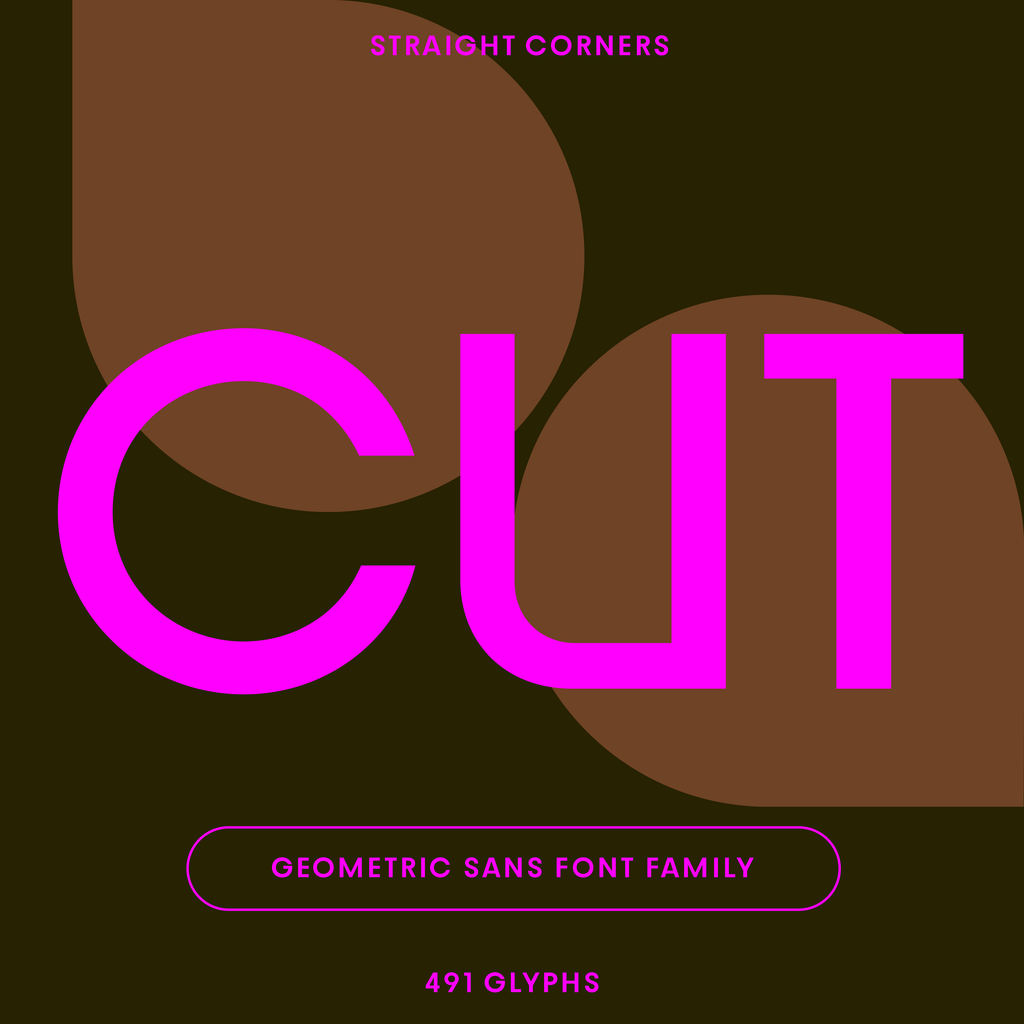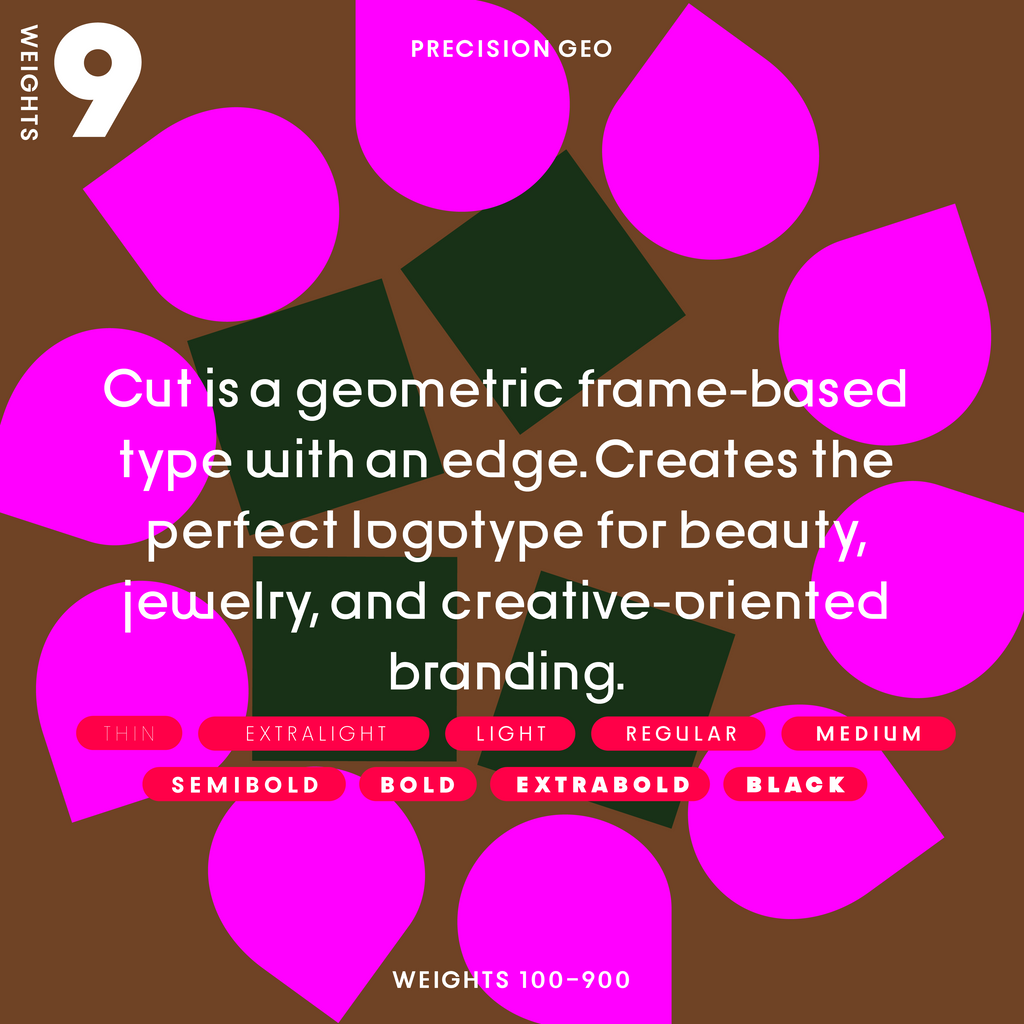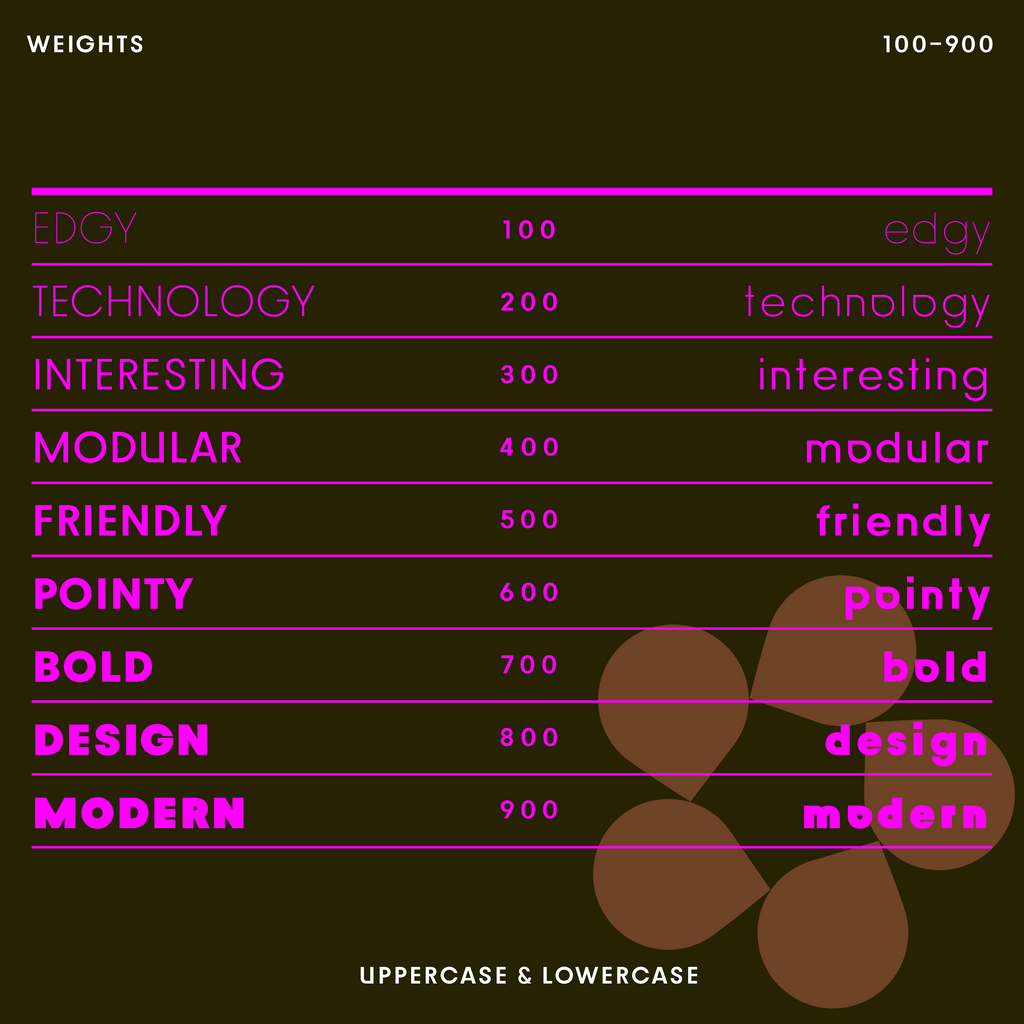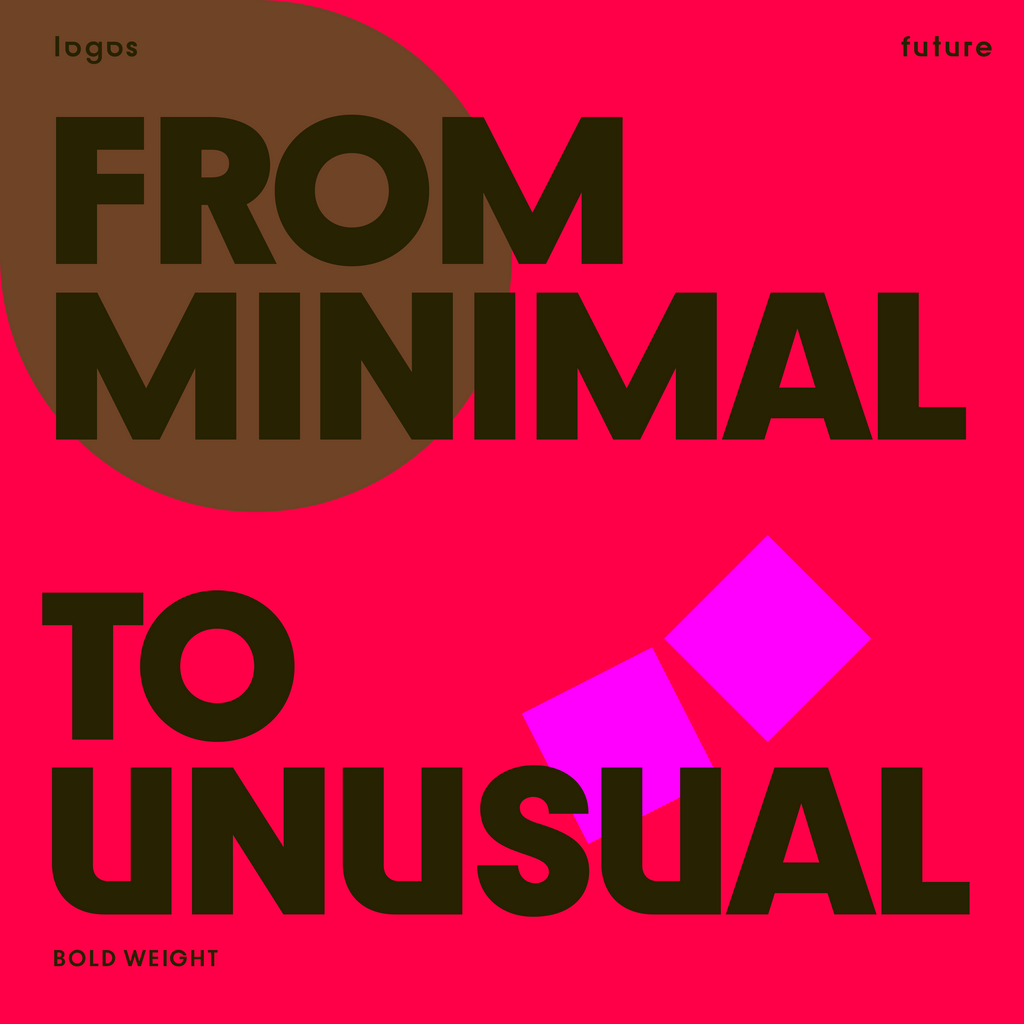
Bauhaus Cut—Pointed sans-serif font, rounded to straight corners
Cut is a pointed sans-serif, geometric frame-based font with an edge. Perfect for logotype for beauty, jewelry, and creative branding. Available in 9 weights, from Thin to Black.